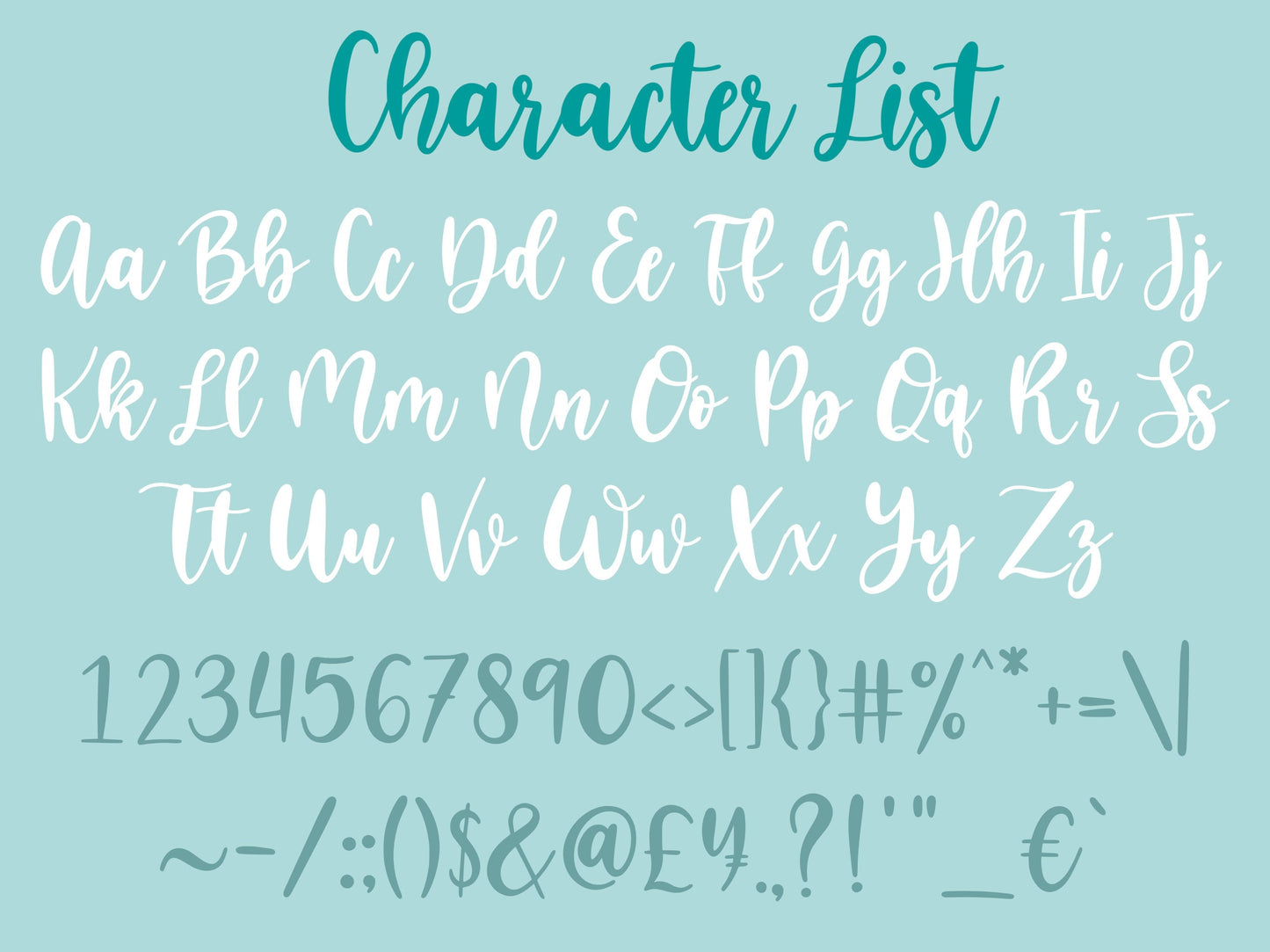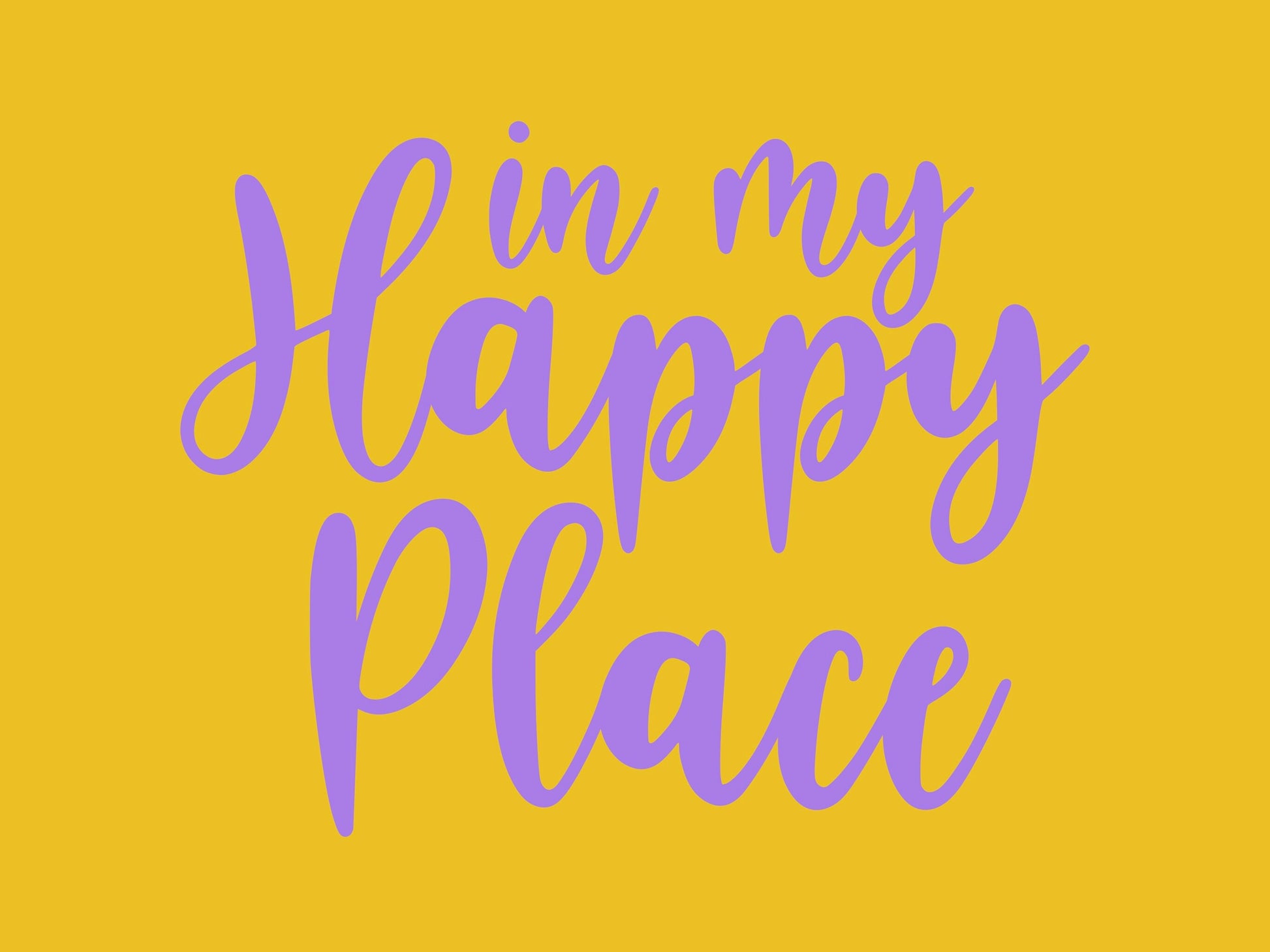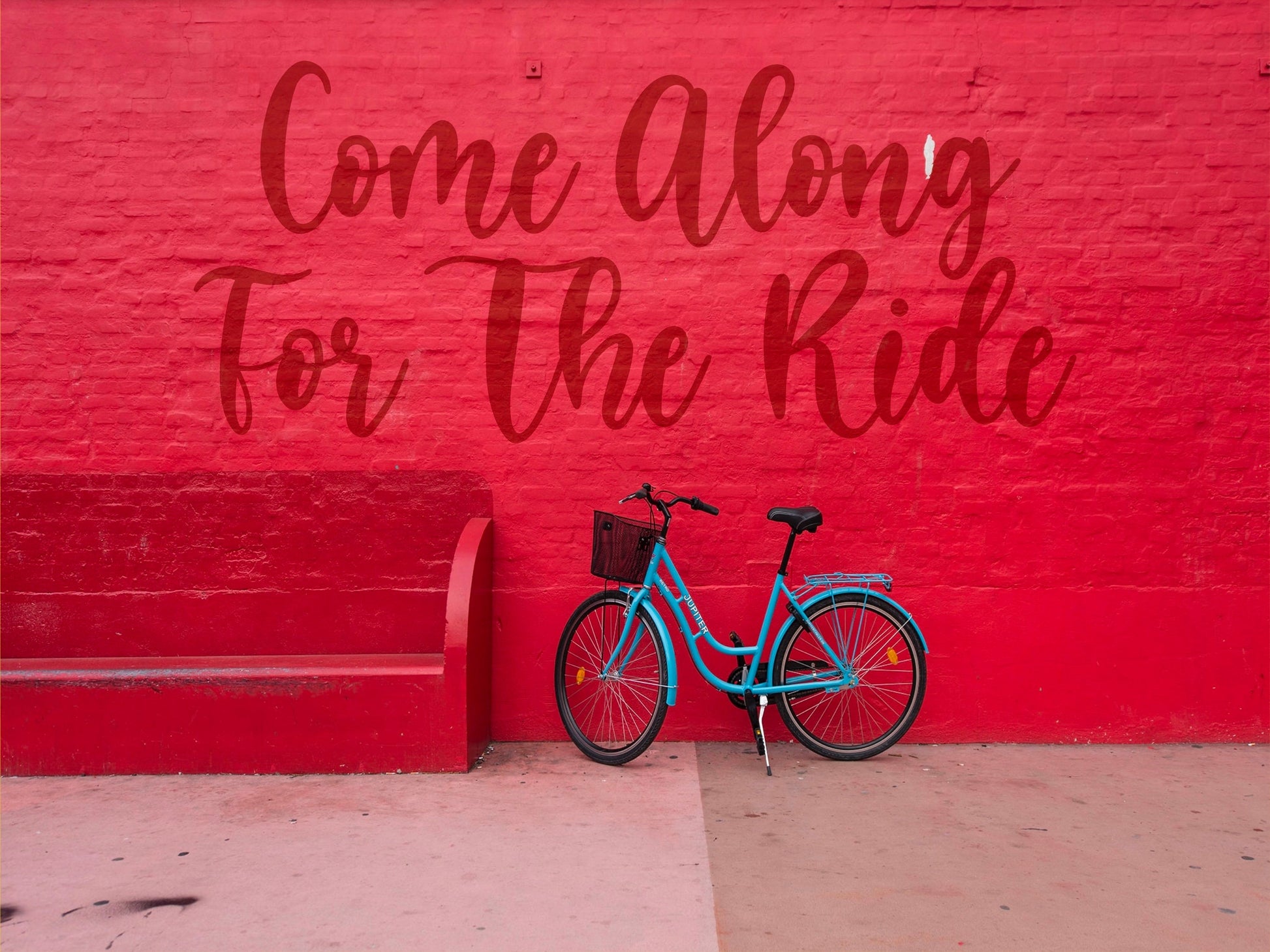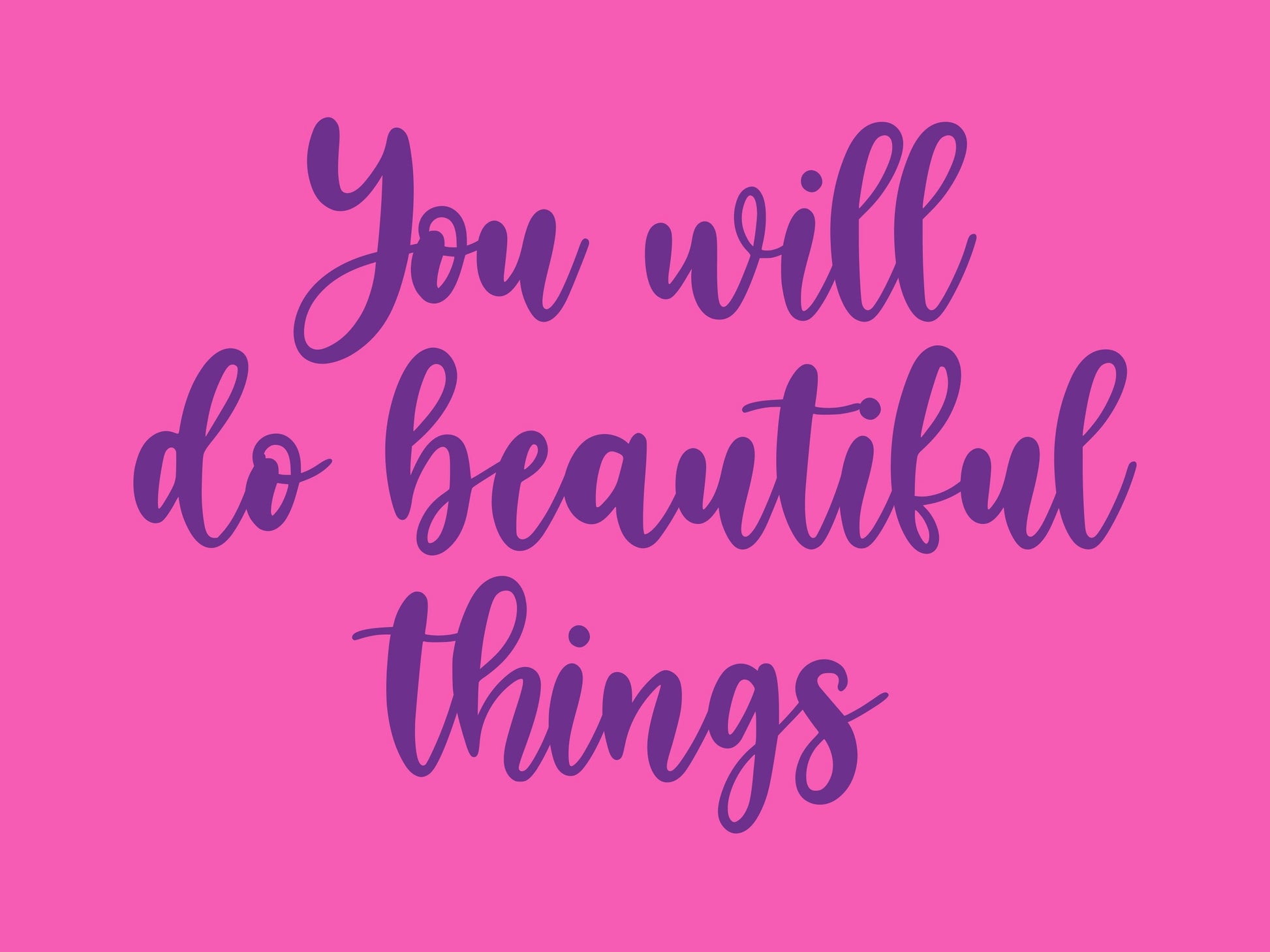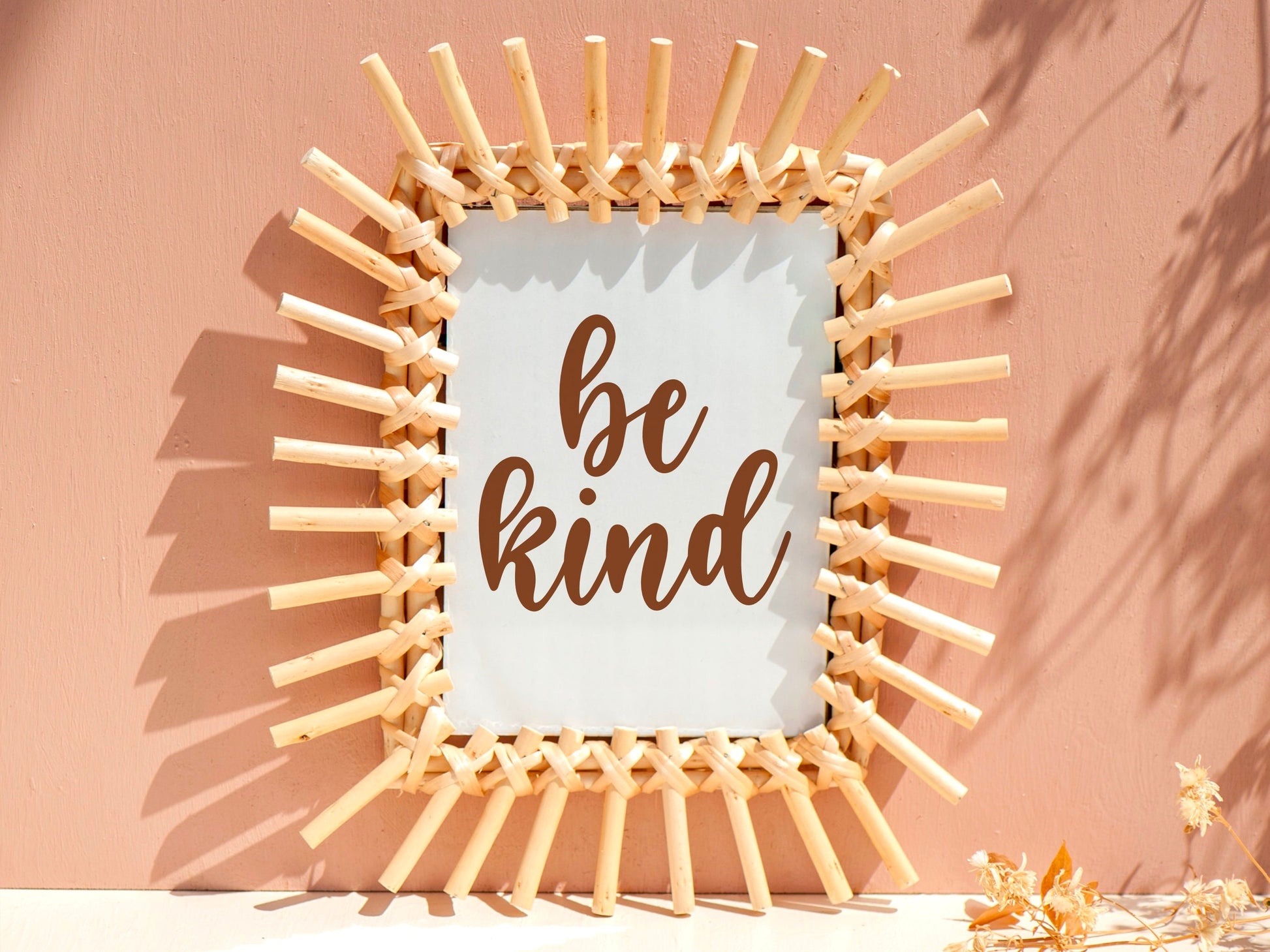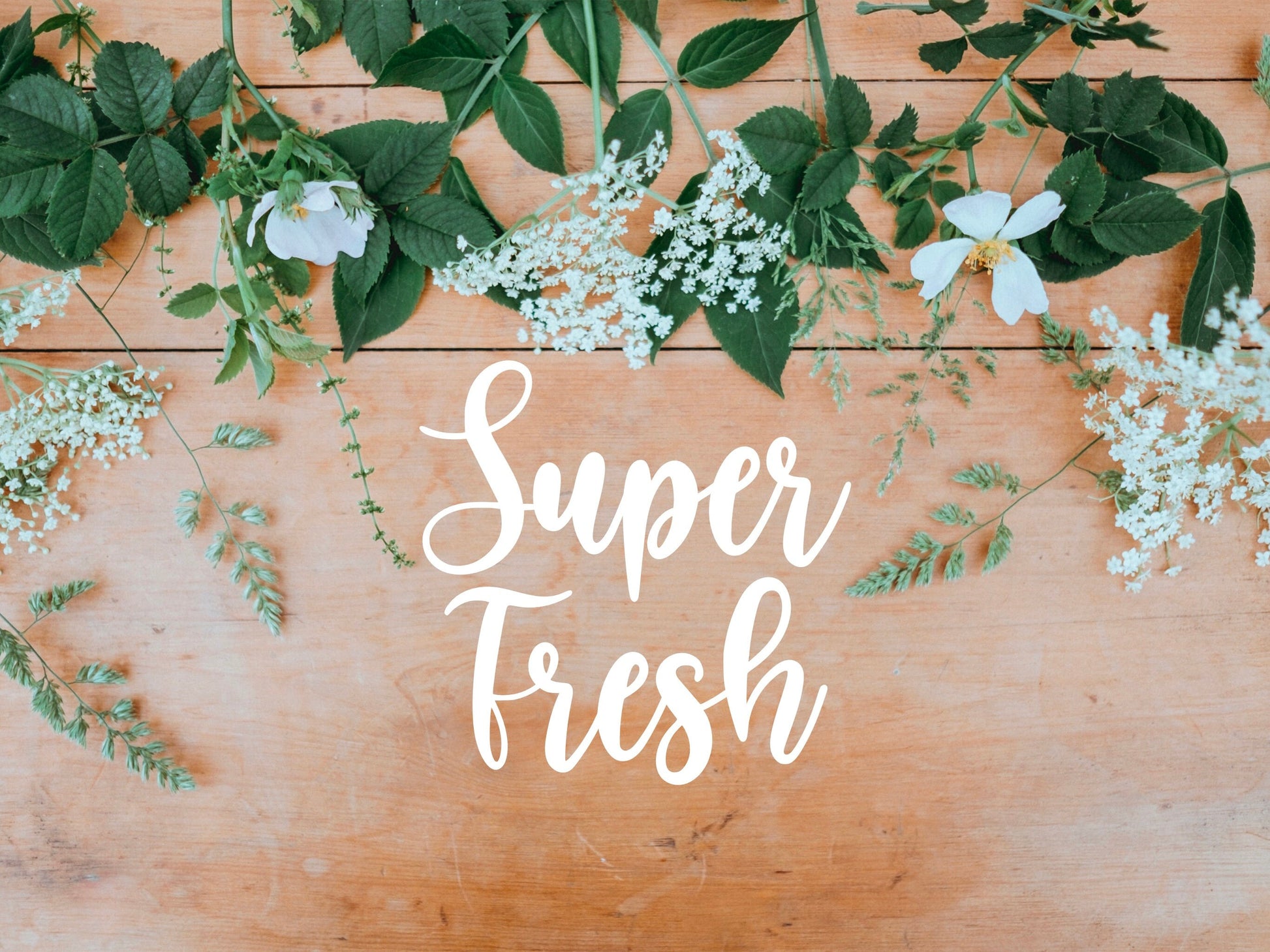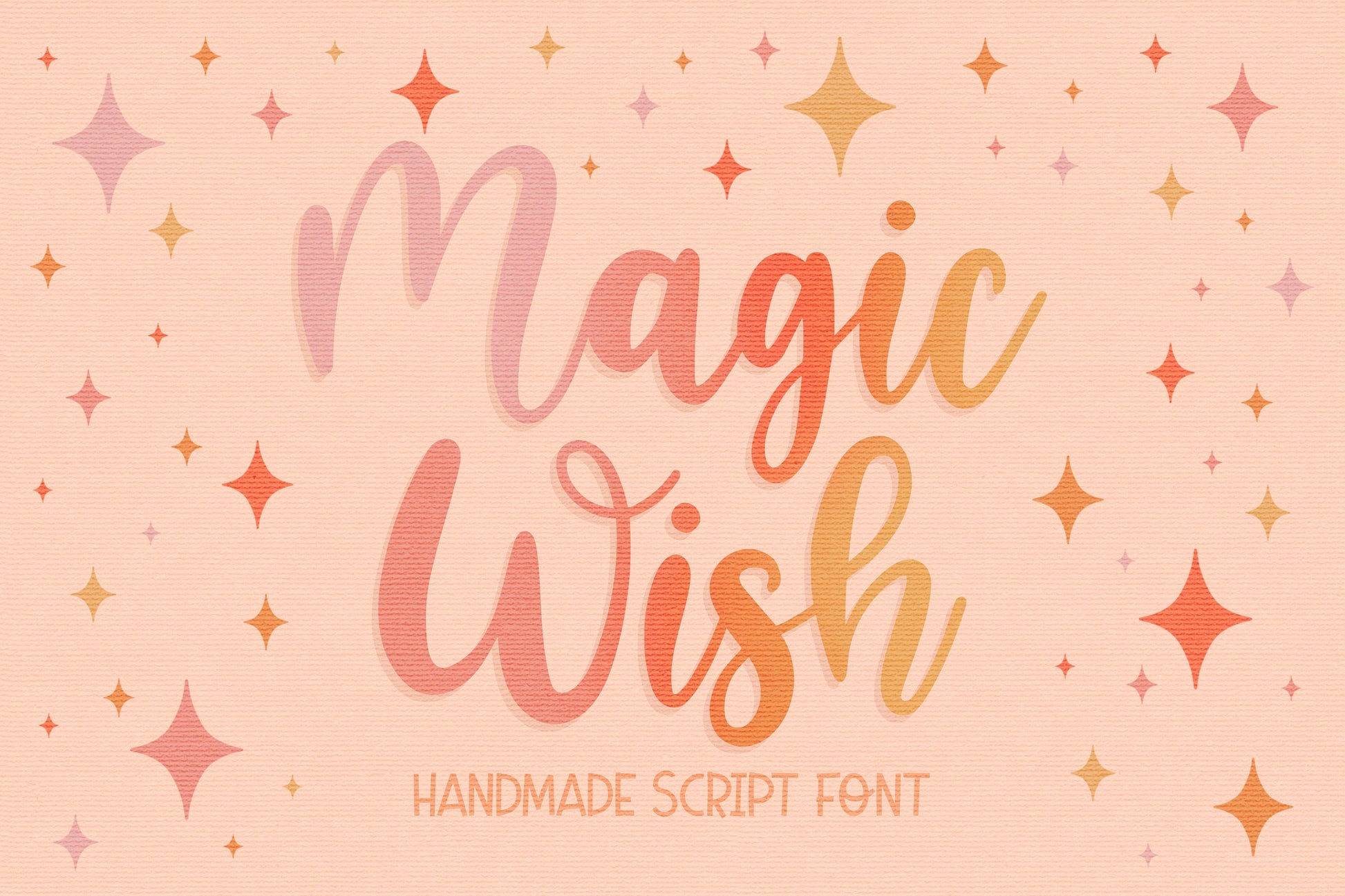
Magic Wish Handwritten Script Font
This is my Magic Wish handwritten/hand drawn font. This unique, bouncy brush script font will add a light, fun, handmade touch to your design! This versatile font is great for formal and elegant designs, but is also great for casual, playful occasions too!